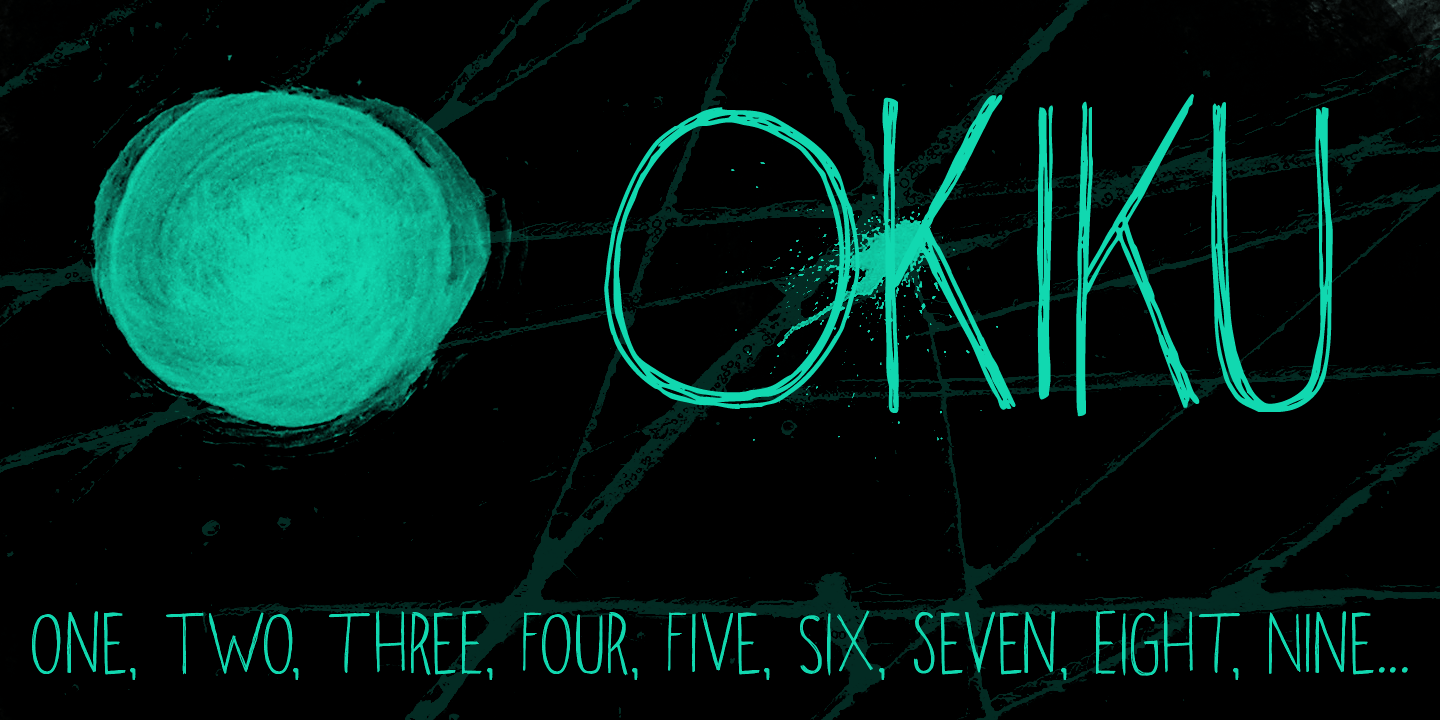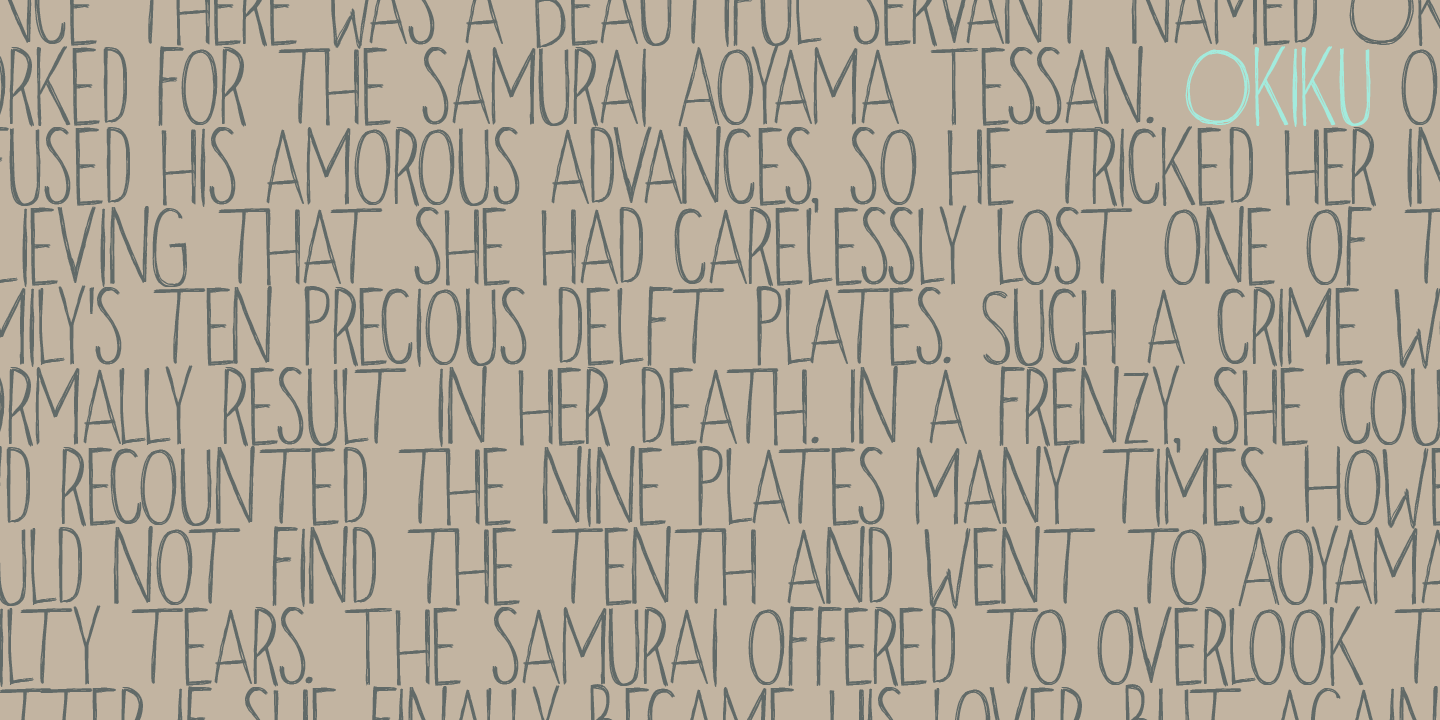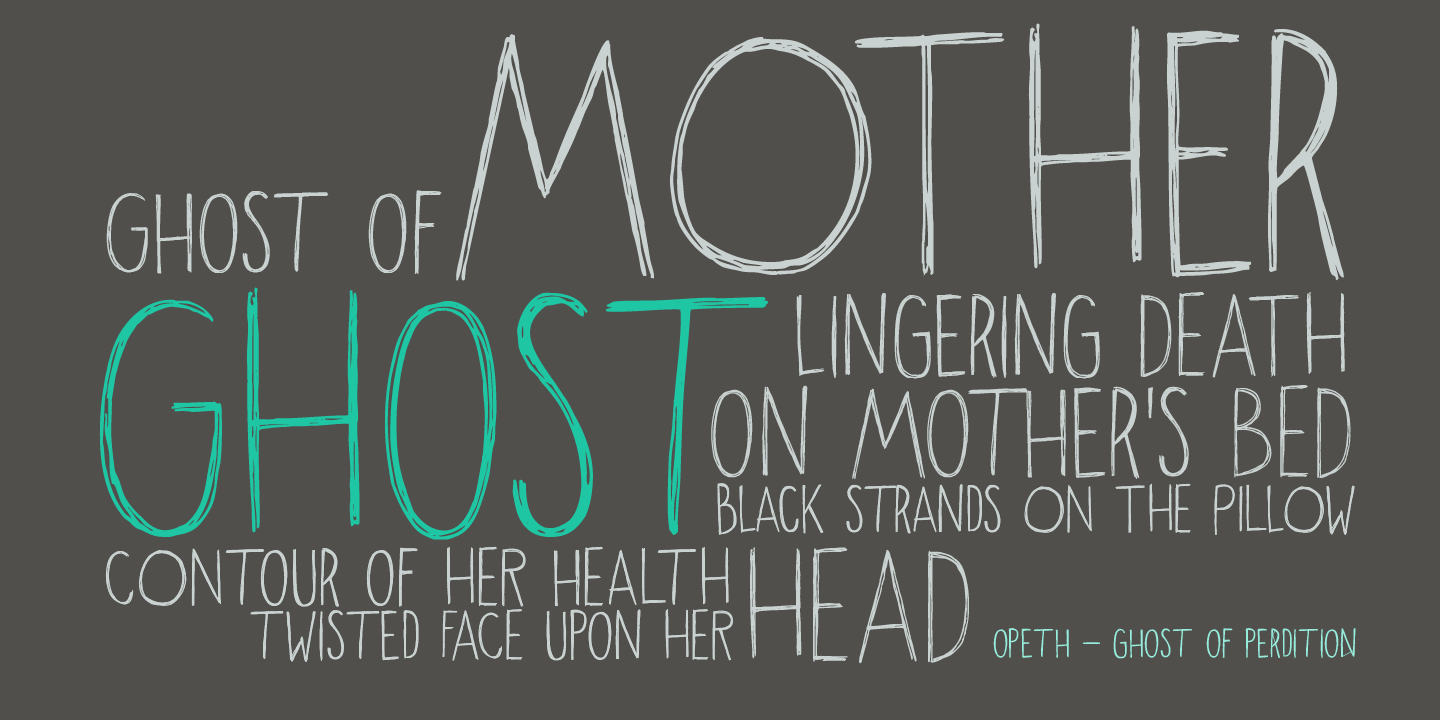
Okiku
Font Family by Hanoded
The tale of Okiku Of The Nine Plates is an old Japanese story full of lust, deceit, murder and revenge. It tells of Okiku, a beautiful servant whose master lusts after her. After she refuses his amorous advances, he accuses her of stealing a costly plate and has her thrown down a well, where she dies. She then turns into an Onry? (a vengeful spirit). Okiku font is a thin, all caps, scratched typeface. Upper and lower case differ and can be interchanged. Okiku comes with an afterlife of diacritics.